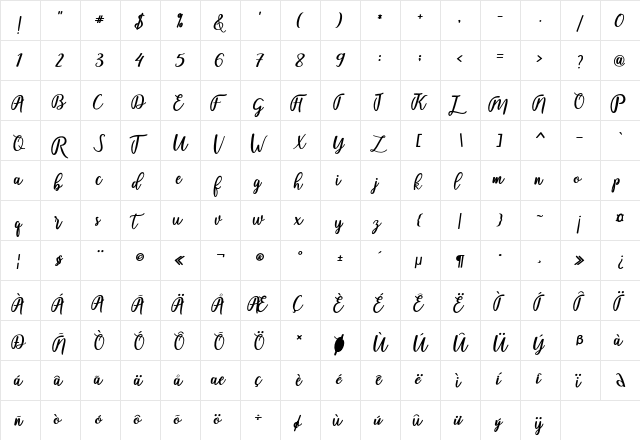
fadelya script
| Foundry | mrletters_muhammad rizal |
| Designer | mrletters_muhammad rizal |
Design Context for fadelya Typeface
fadelya flows with the natural rhythm of handwritten lettering, making it ideal for designs that call for warmth and personal expression.
Font Pairing: Combine fadelya with a simple geometric sans for maximum contrast — the tension between flowing curves and clean structure is a classic typographic pairing.
Pro Tip: Use fadelya for short runs of text — names, titles, or taglines. Extended body copy in script faces tires the eye quickly.